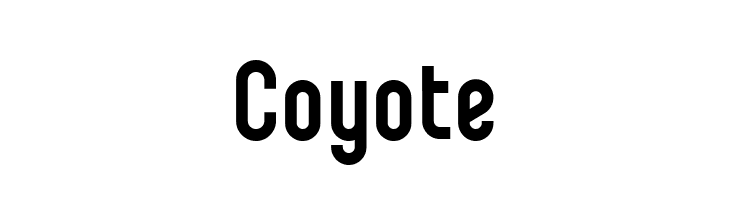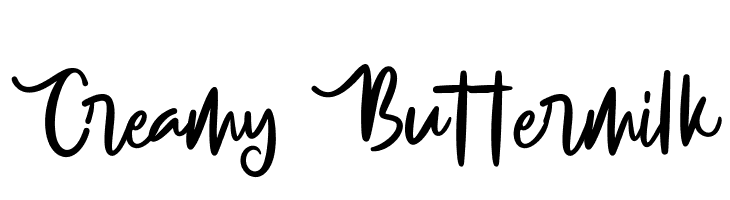
A bold, modern font with rounded edges and a geometric structure.
A playful, handwritten script font with smooth, flowing curves.
A futuristic, angular font with bold geometric shapes.
A bold, distressed font with a cracked, urban street art style.
A playful and artistic script font with fluid strokes and dynamic style.
A playful, festive font with decorative, handcrafted elements.
A playful, hand-drawn font with bold, rounded characters.
A playful, handwritten font with bold, curvaceous letters and a whimsical style.
A playful, cursive script font with elegant, flowing strokes.
A bold, handwritten font with a playful and energetic style.